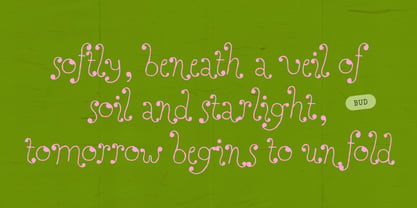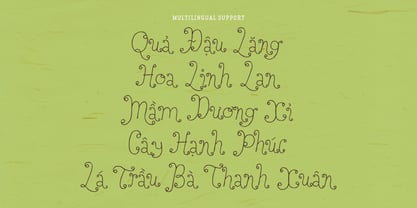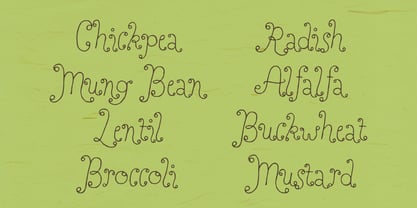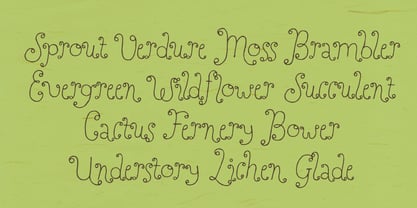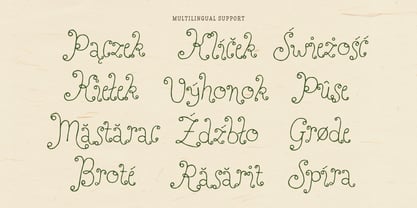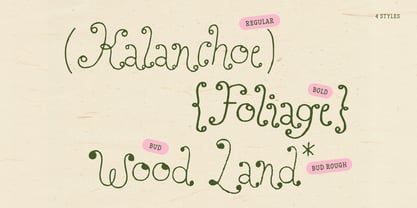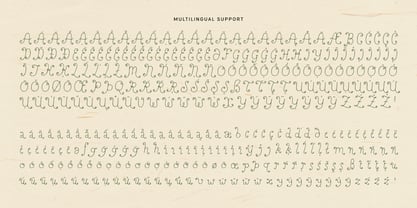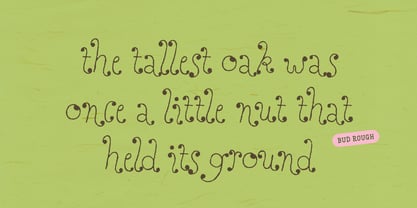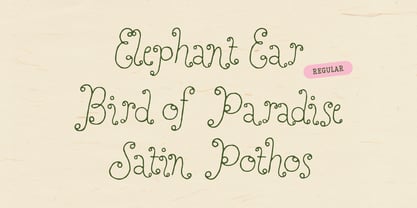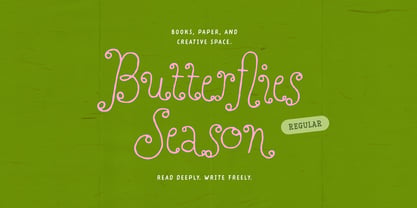
Perfect Sprouts
by type peace
The Perfect Sprouts Font Family was designed by Hai Anh Nguyen and published by type peace. Perfect Sprouts contains 1 styles. More about this family
Perfect Sprouts is a whimsical, hand-drawn typeface family crafted with care, intention, and a touch of earthy magic.
Each character was drawn by hand and brought together with love to deliver a warm, artisanal feel to your creative work. Perfect for designs that need an organic, heartfelt feel.
Ideal for: Branding, packaging, children’s books, wedding stationery, and editorial layouts.
Designers: Hai Anh Nguyen
Foundry: type peace